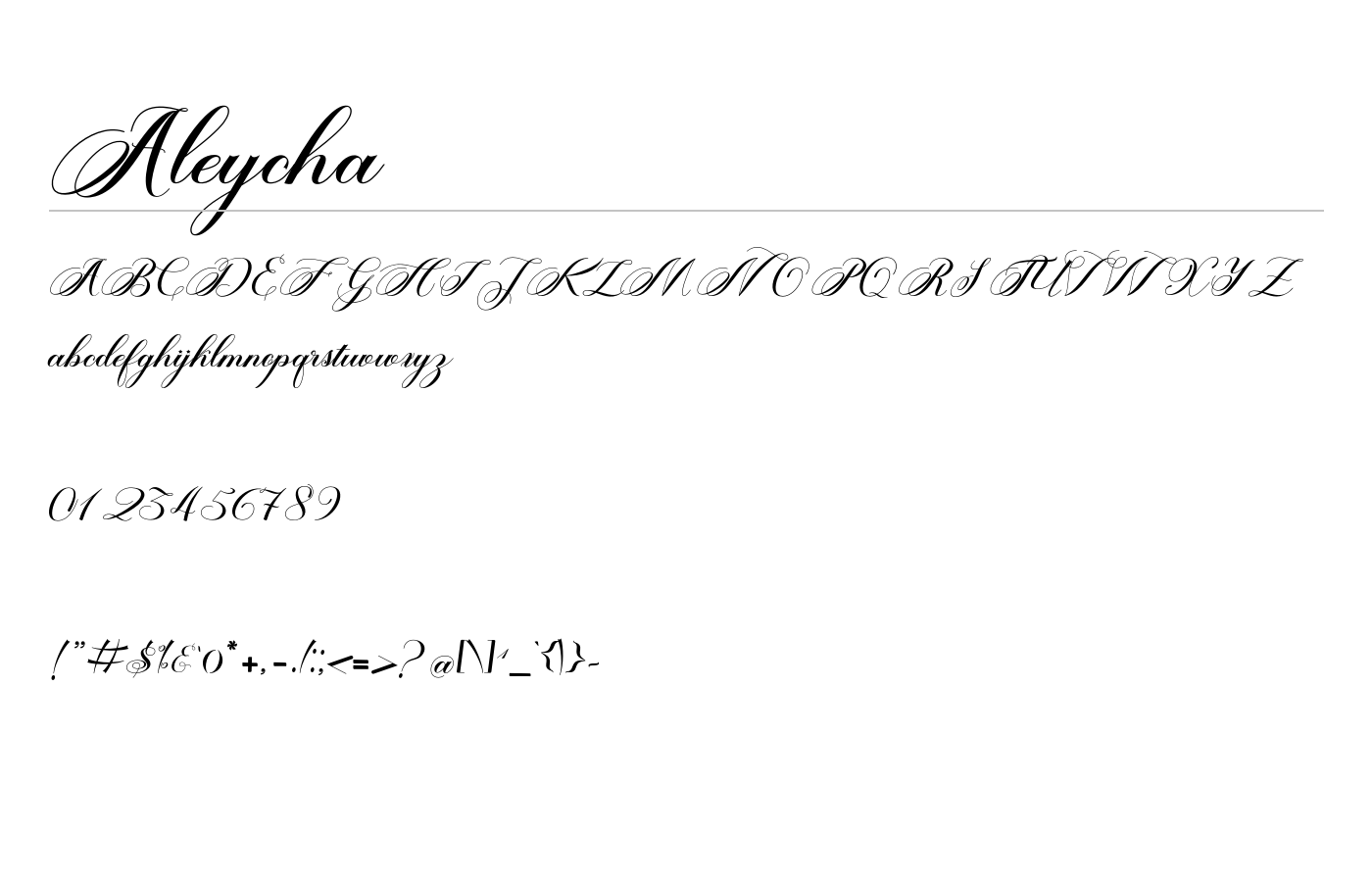
Aleycha is an elegant script font that features delicate, flowing strokes with high contrast between thick and thin lines, giving it a refined and sophisticated appearance. Its ornate uppercase letters with graceful flourishes and slender, italicized lowercase characters make it perfect for luxury branding, wedding invitations, and formal editorial use where a classic, decorative style is desired. This font excels in settings that require a touch of elegance and personality, especially in display and headline applications.
Aleycha Font
About Aleycha Font